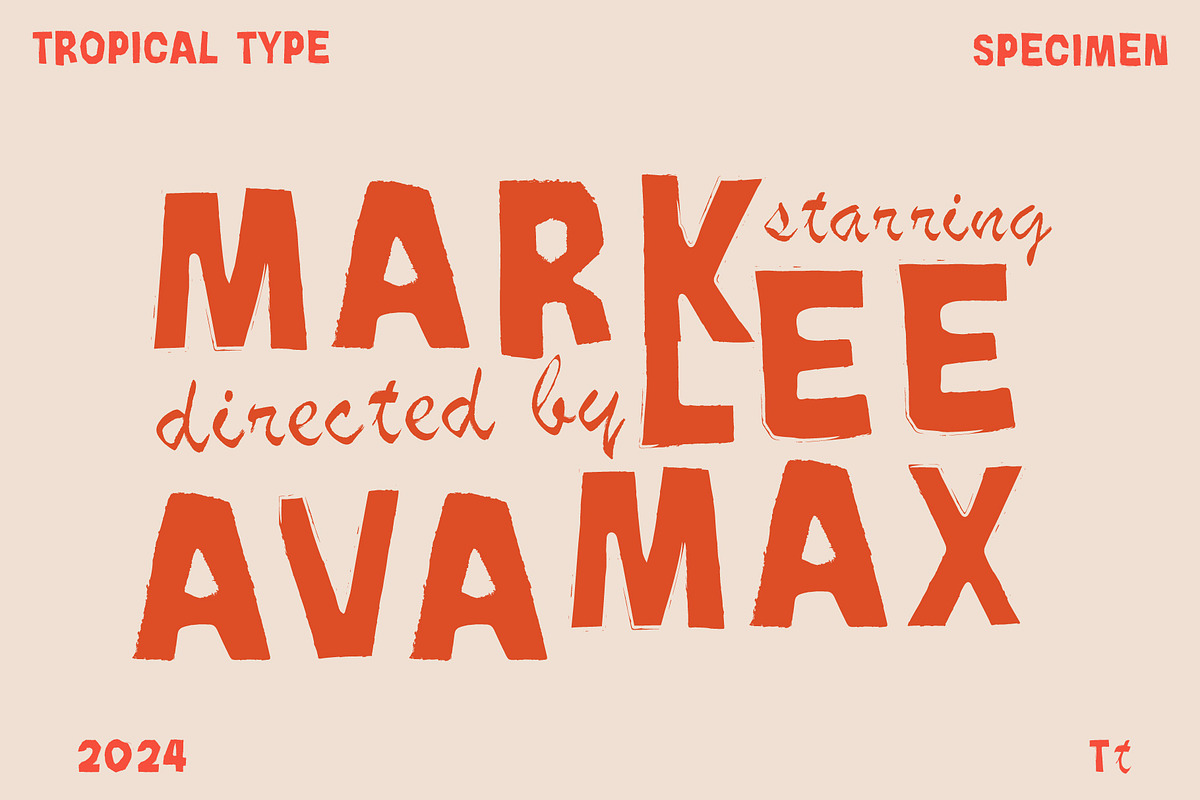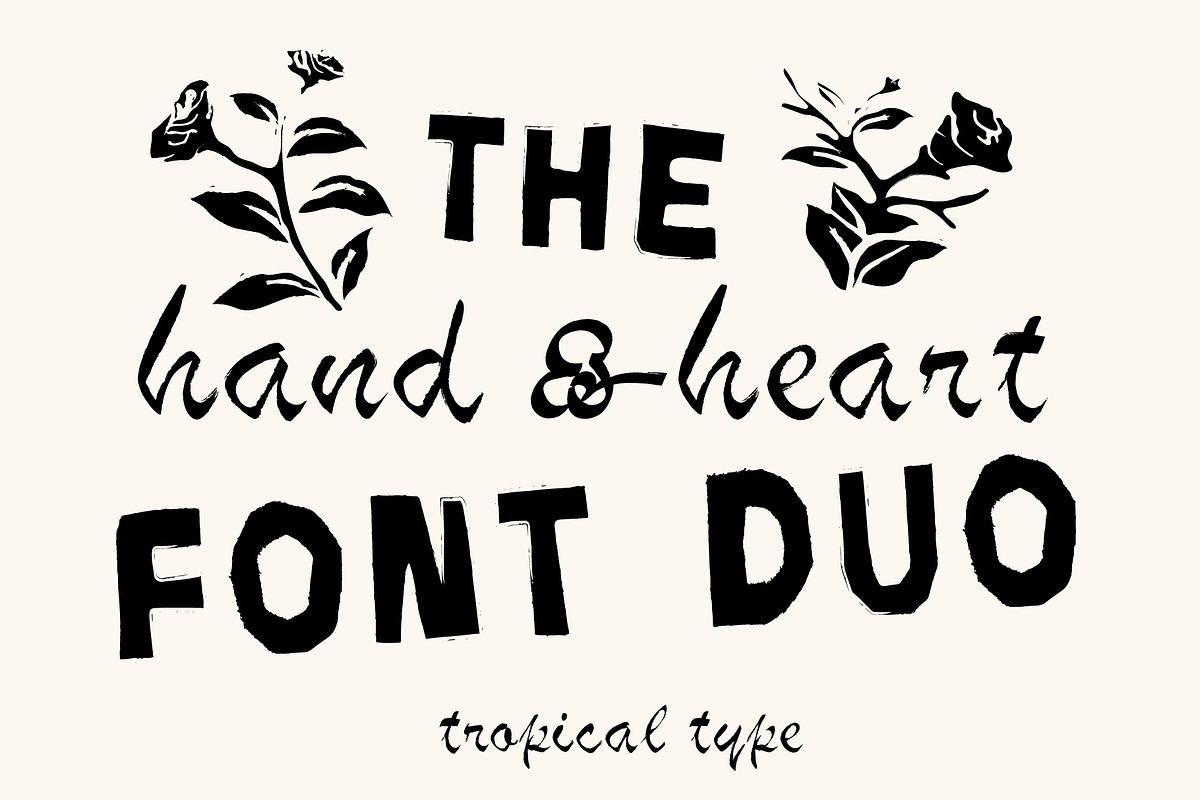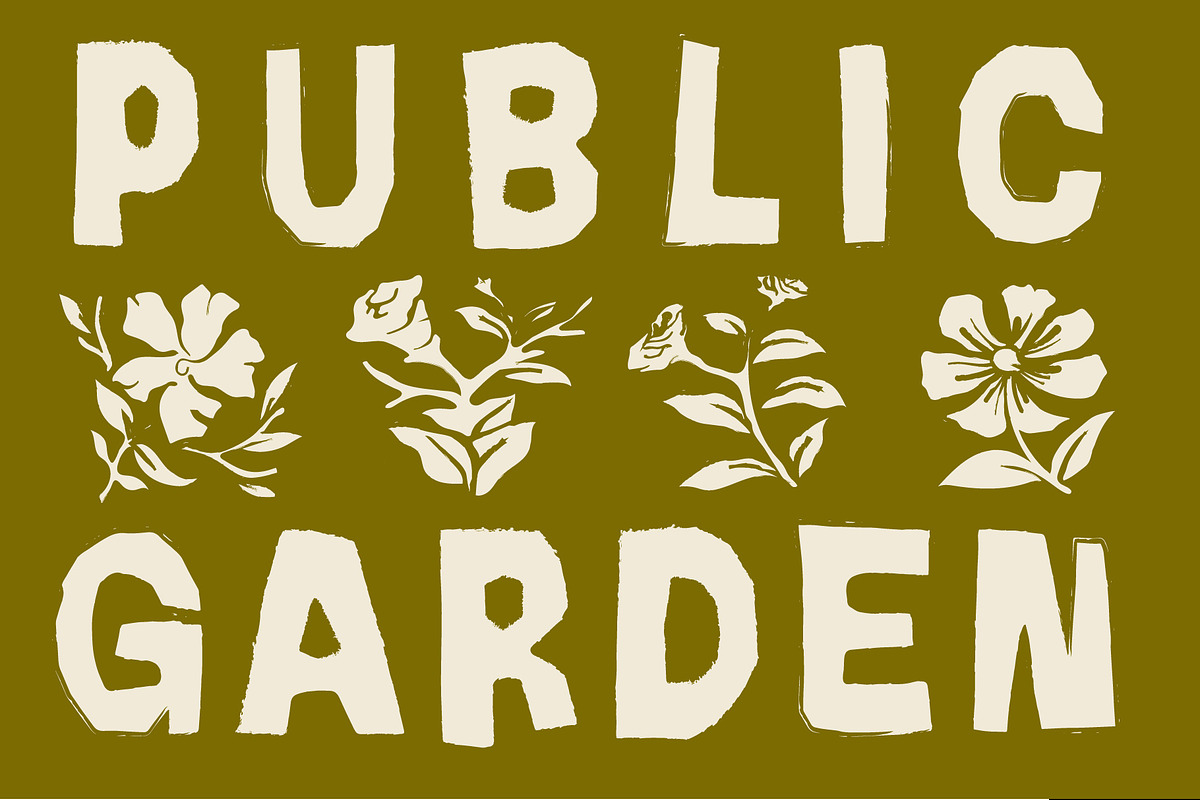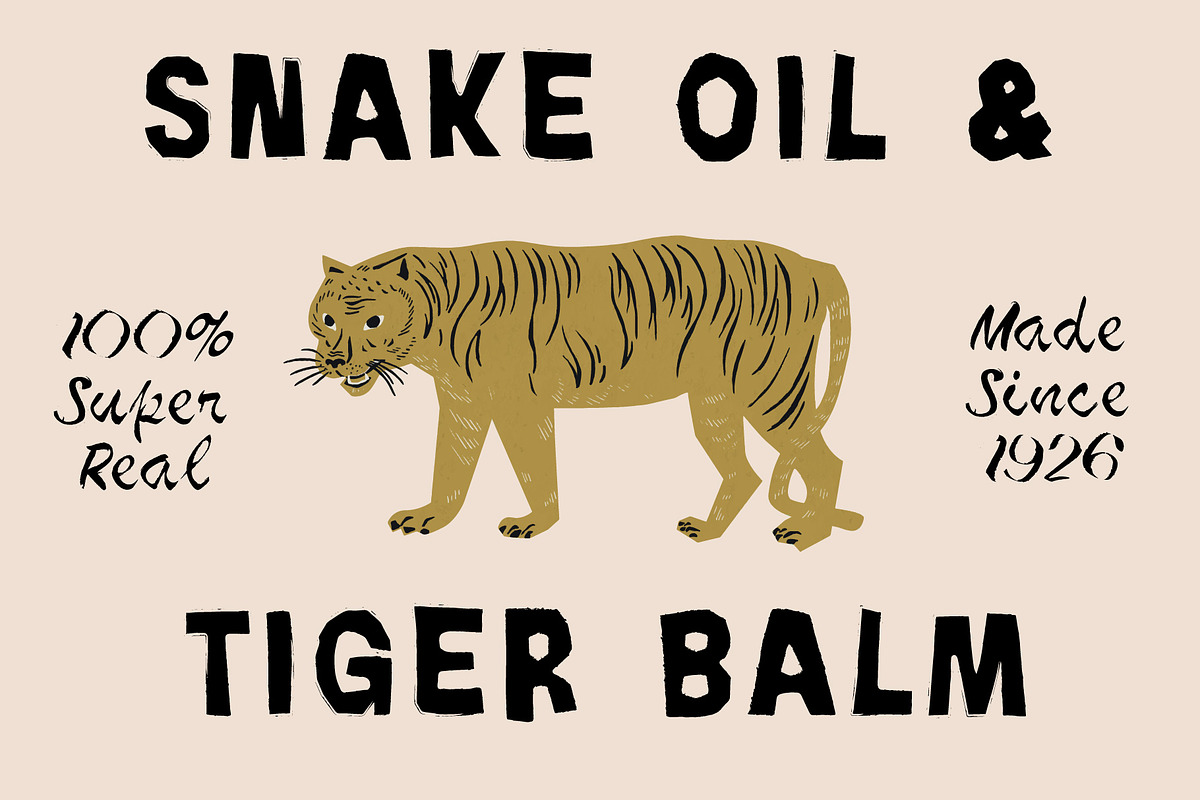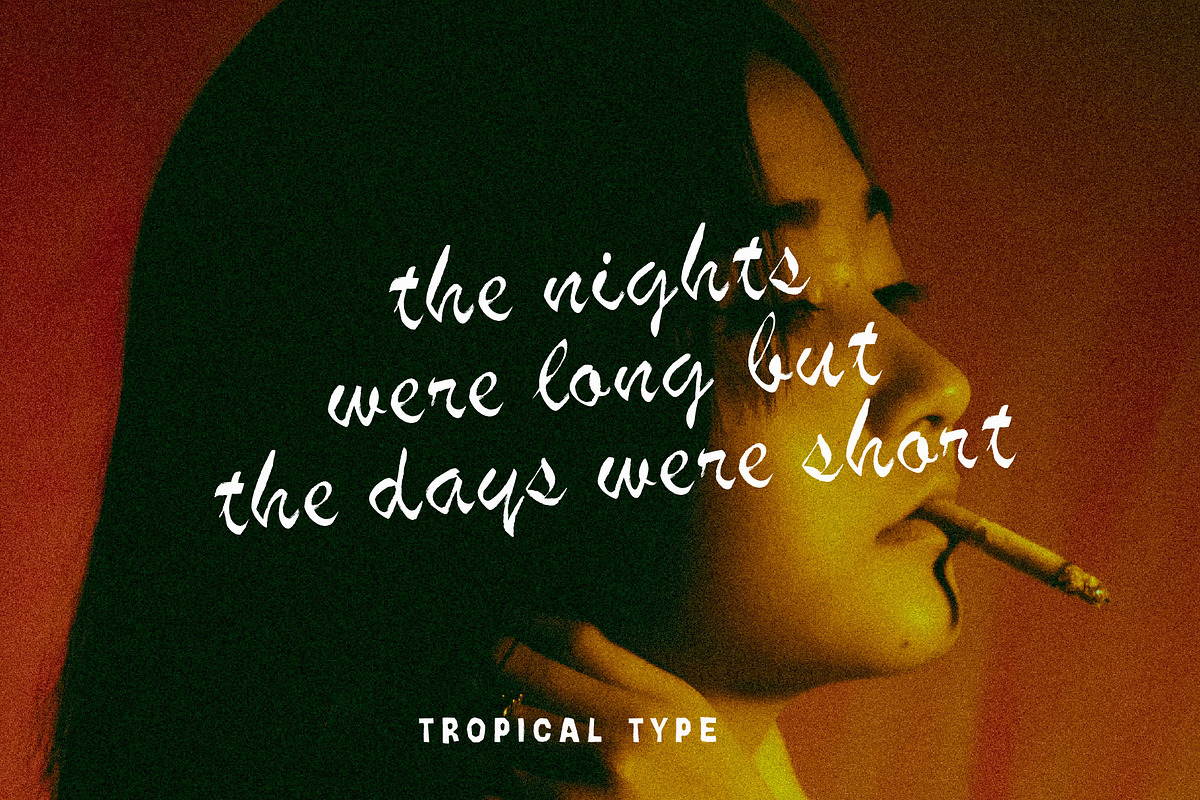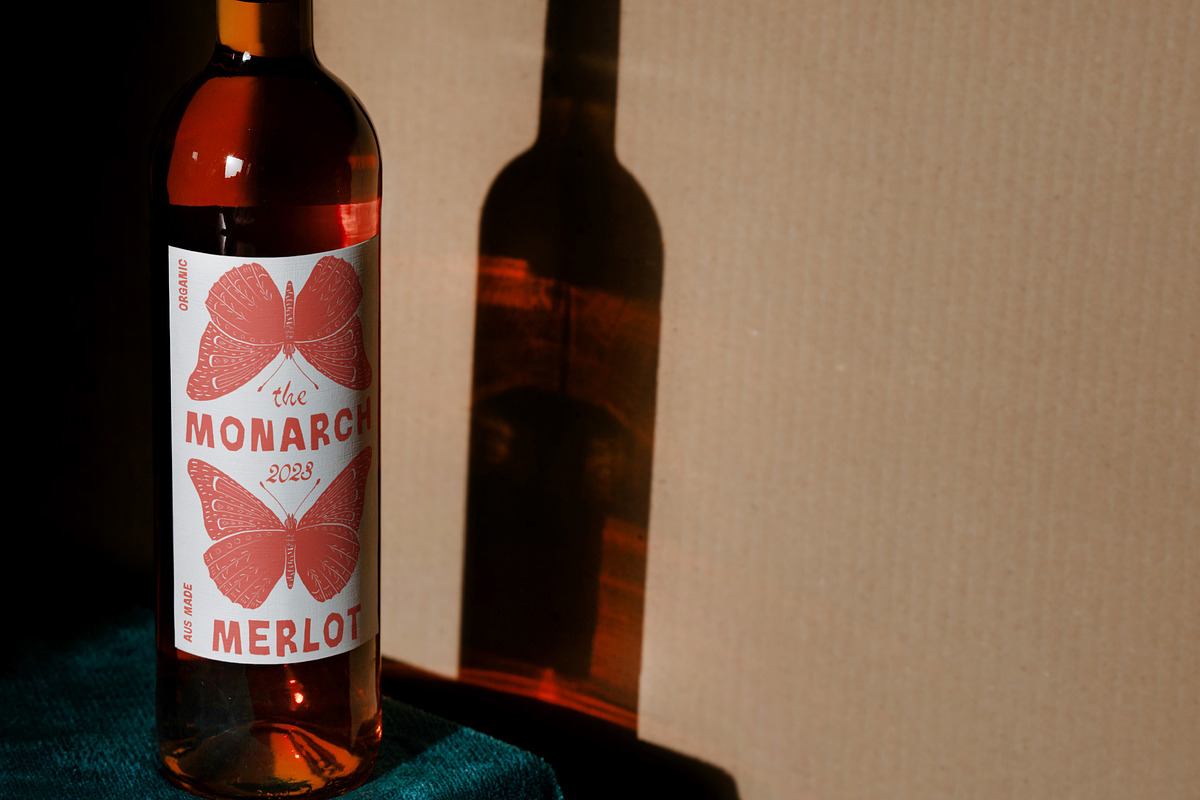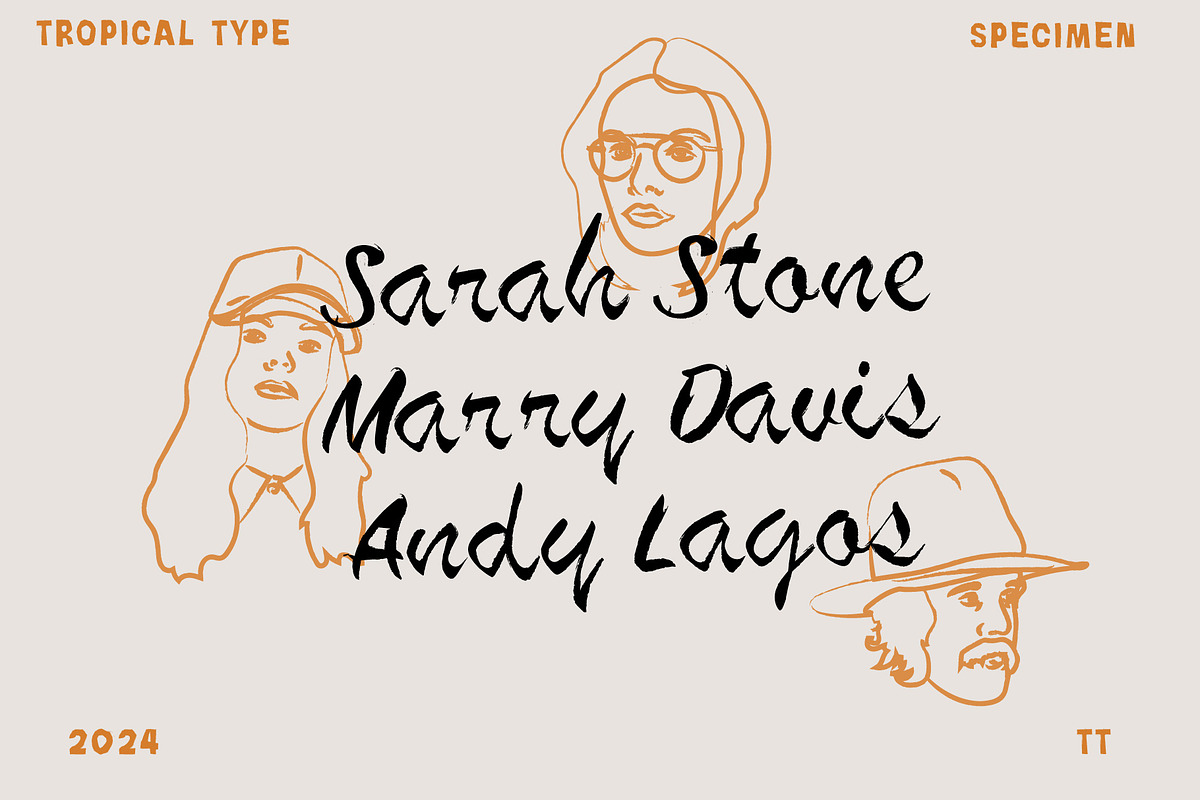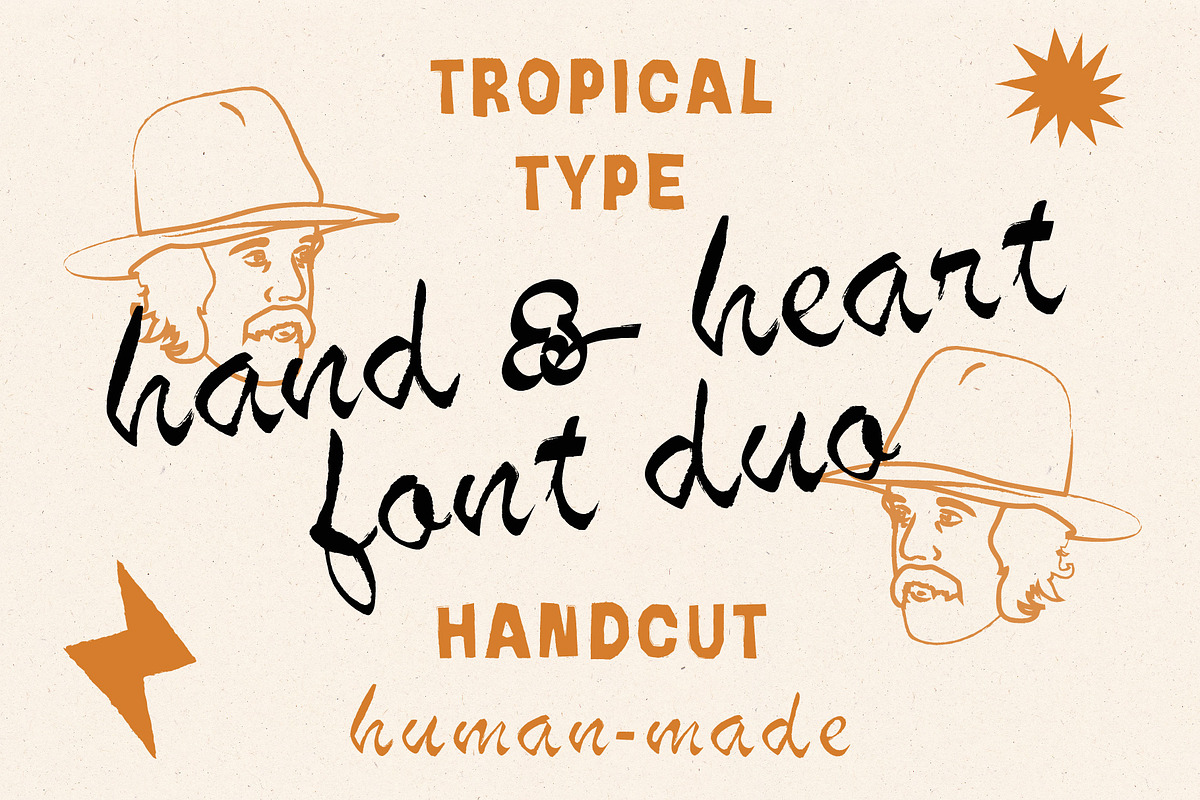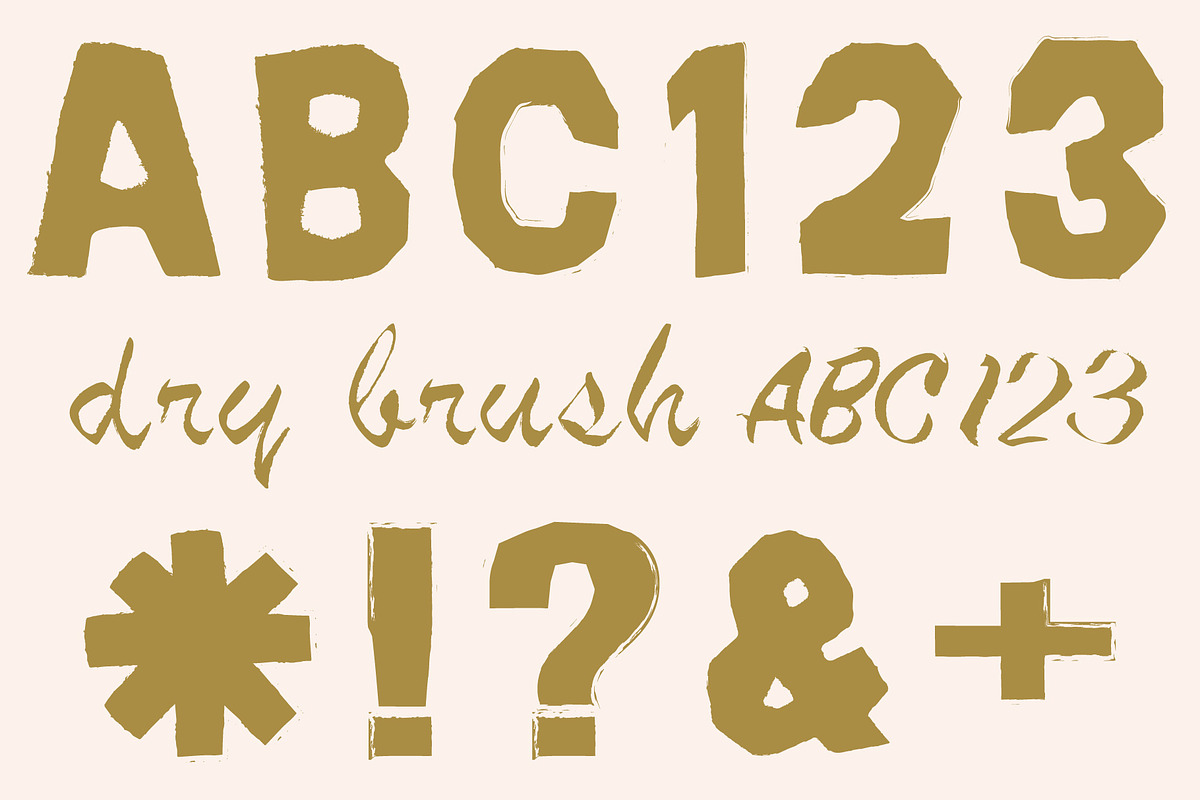
Hand & Heart Font Duo
Hand & Heart is a real handmade font duo. Cut out of paper and a dry brushed script. If you want to get away from the AI rat-race, then try something 100% natural, made with hand and heart!
-Non English glyphs included:
ą á â à ä å ã æ ć ç ę é ê è ë í î ì ï ı ł ñ ń ó ô ò ö õ ø œ ś š ß ú û ù ü ý ÿ ž ź ż.Ą Á  À Ä Å Ã Æ Ć Ç Ę É Ê È Ë Í Î Ì Ï Ł Ń Ñ Ó Ô Ò Ö Õ Ø Œ Ś Š Ú Û Ù Ü Ý Ÿ Ź Ż